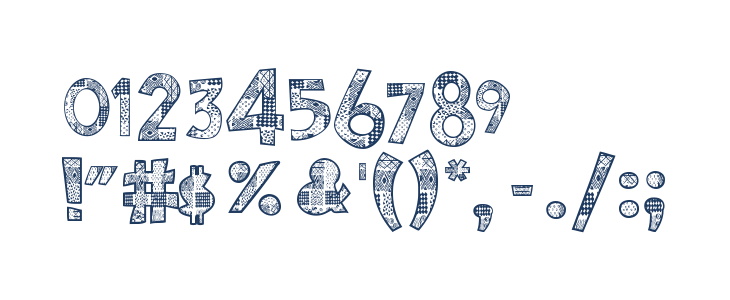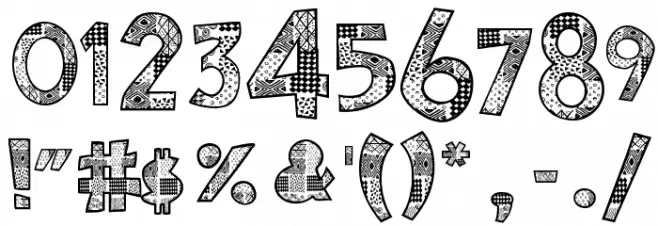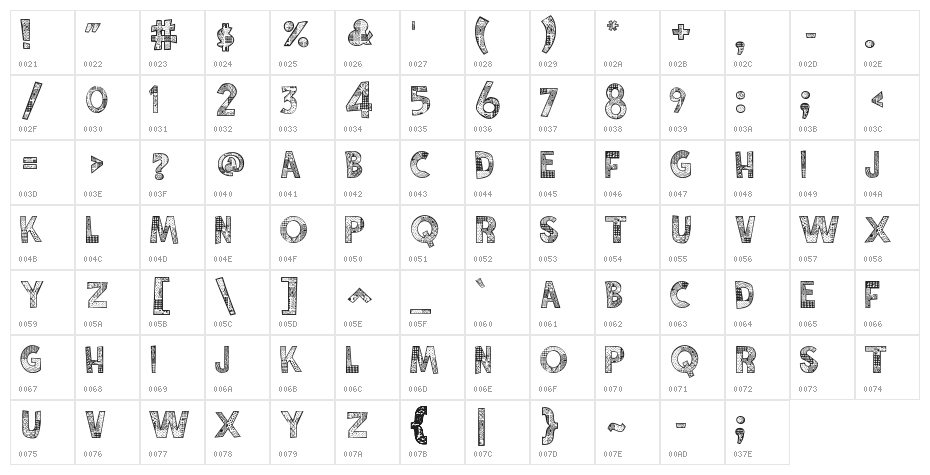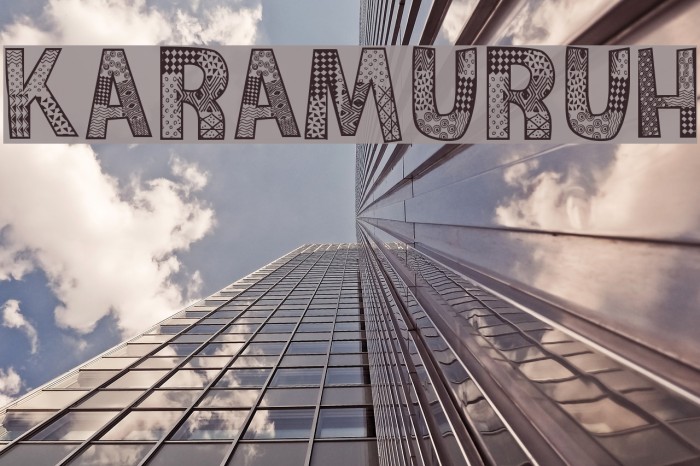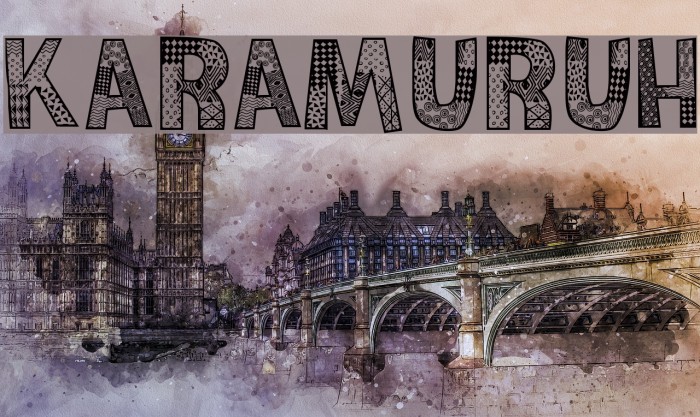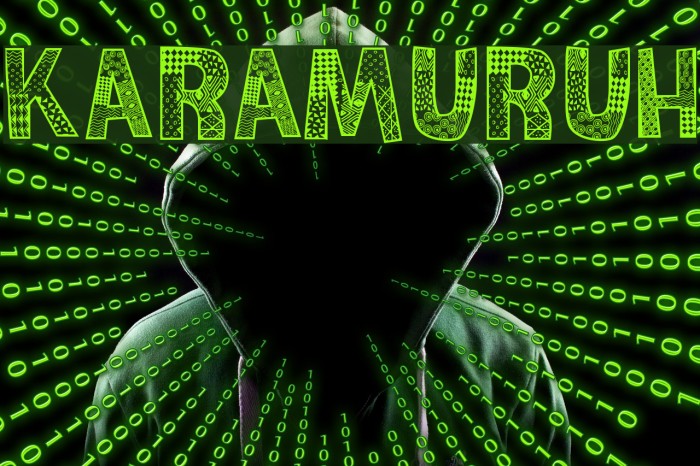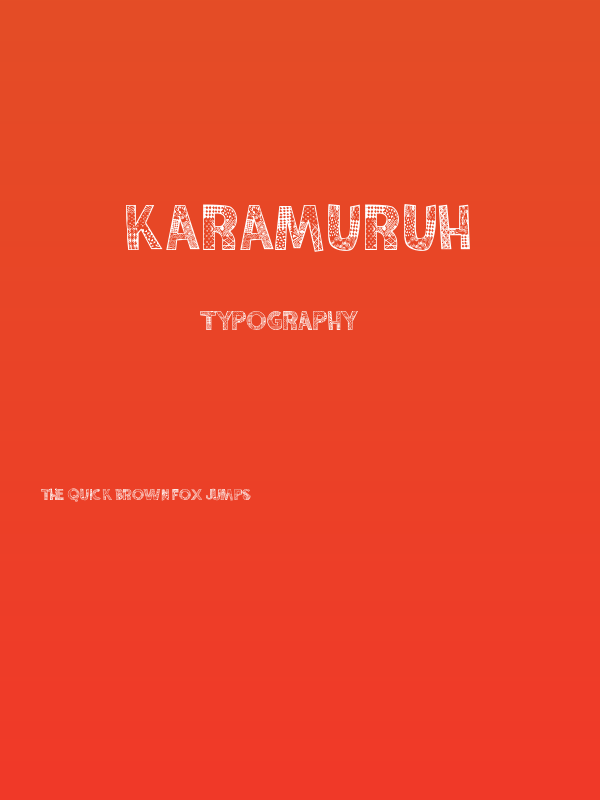
Karamuruh Font
Karamuruh Description
This font features a playful and artistic design with each character filled with unique patterns and textures. The letters and numbers are bold and eye-catching, making use of various geometric shapes, dots, and lines to create a visually engaging effect. The style is reminiscent of hand-drawn illustrations, giving it a whimsical and creative feel. The characters are uniformly bold, with consistent width and height, ensuring readability despite the intricate designs within each letter. This font is ideal for projects that require a fun and dynamic visual element, such as children's books, posters, or creative branding.
| Overall Style | Whimsical, Artistic, Playful |
| Use Case | Headlines, Posters, Creative Branding |
| Proposed Projects | Ideal for children's books, posters, creative branding, and playful designs. |